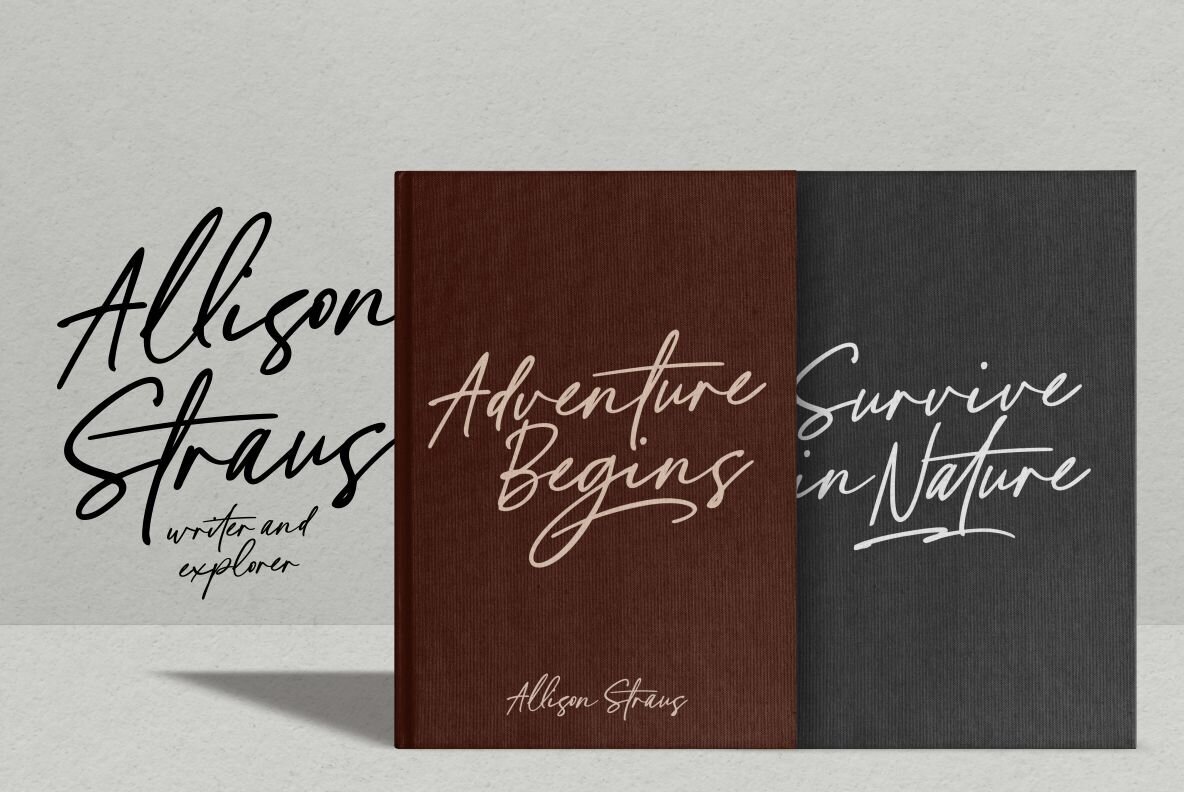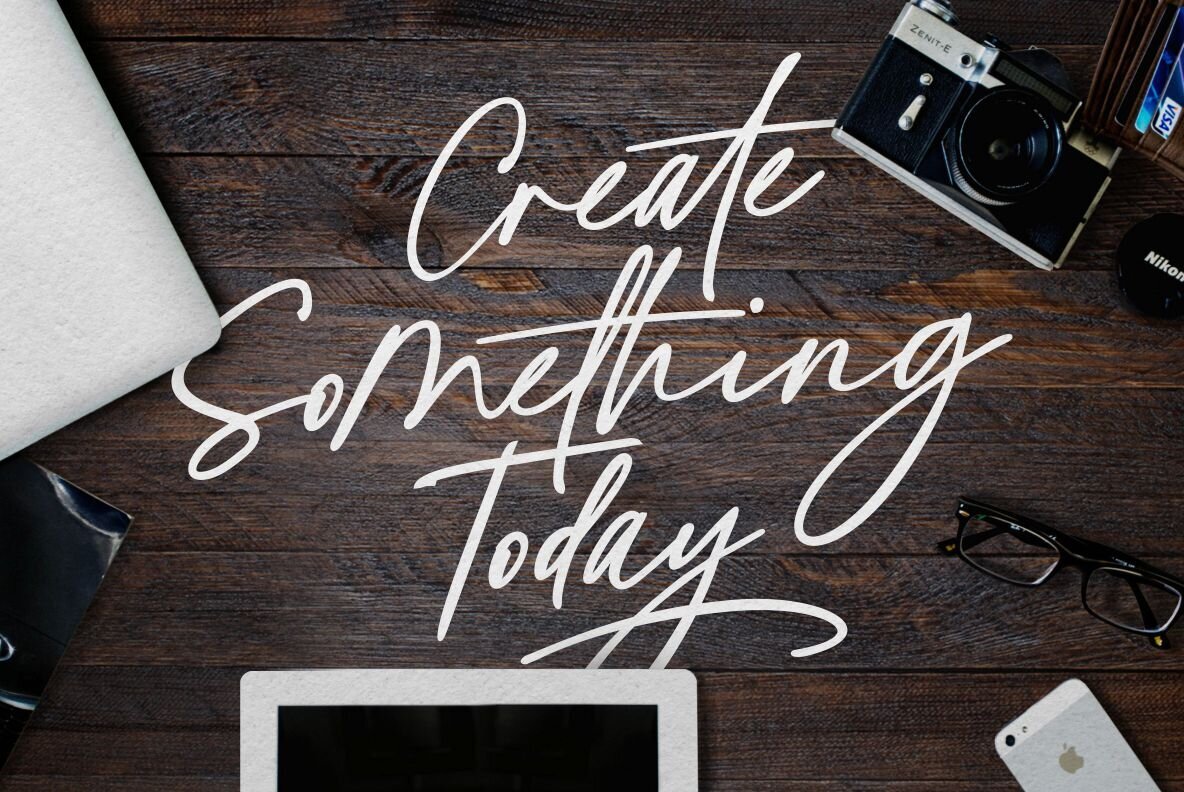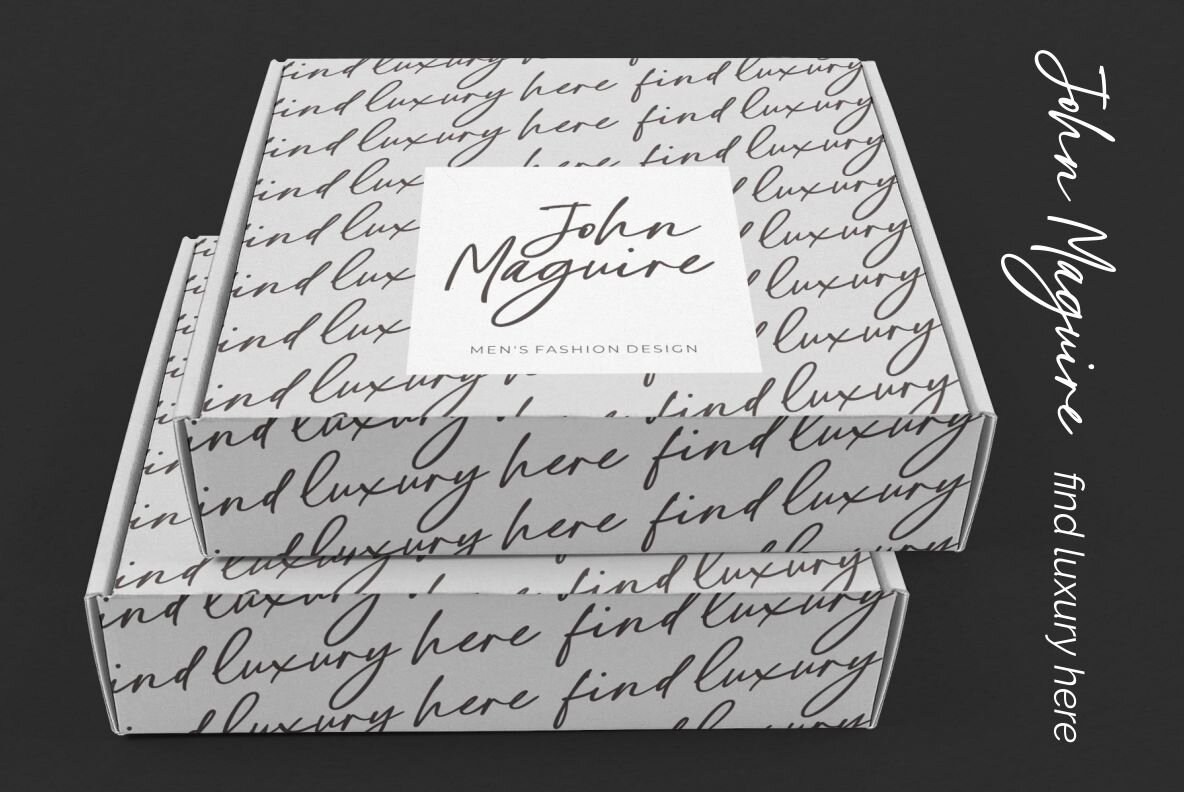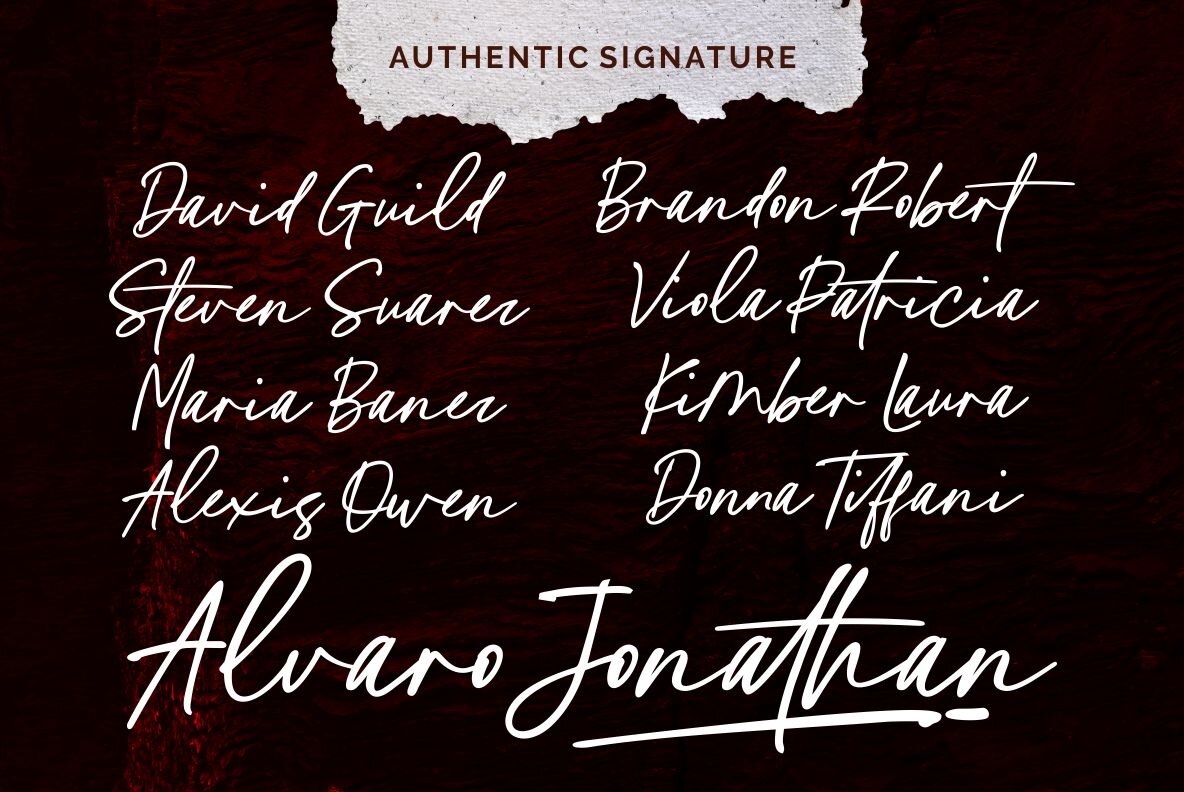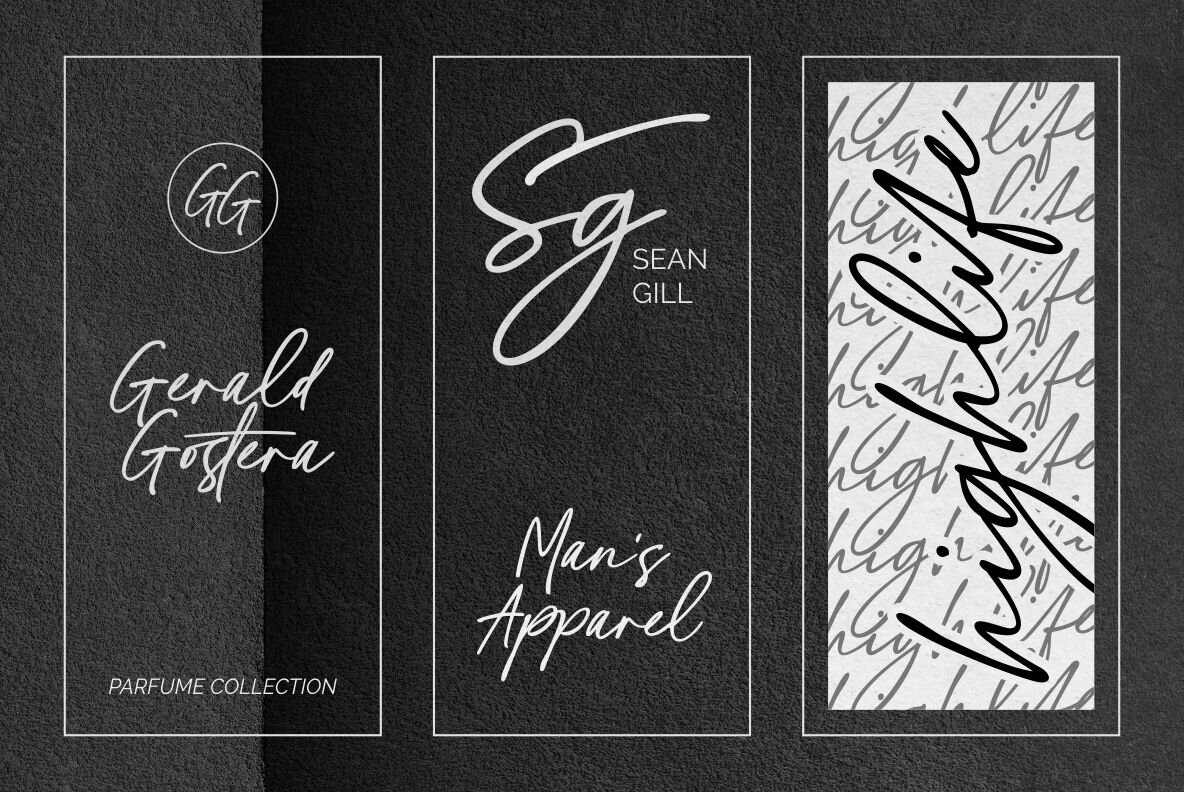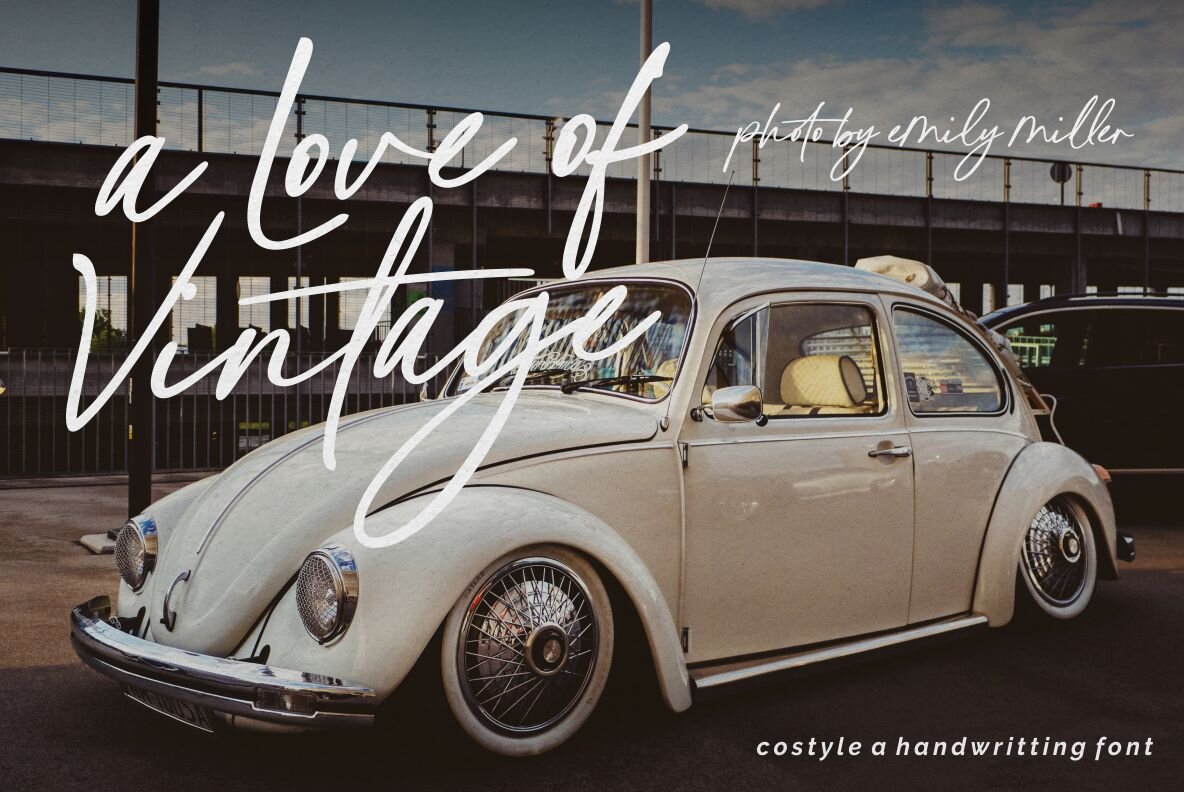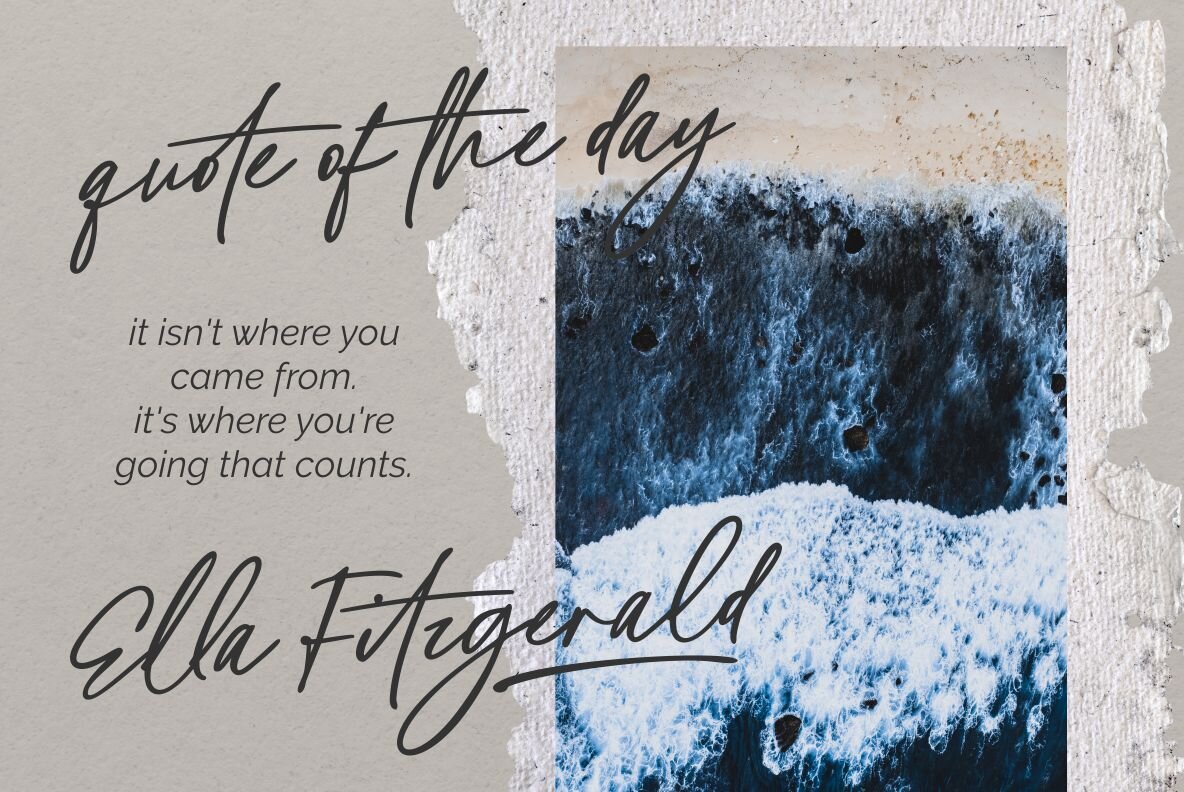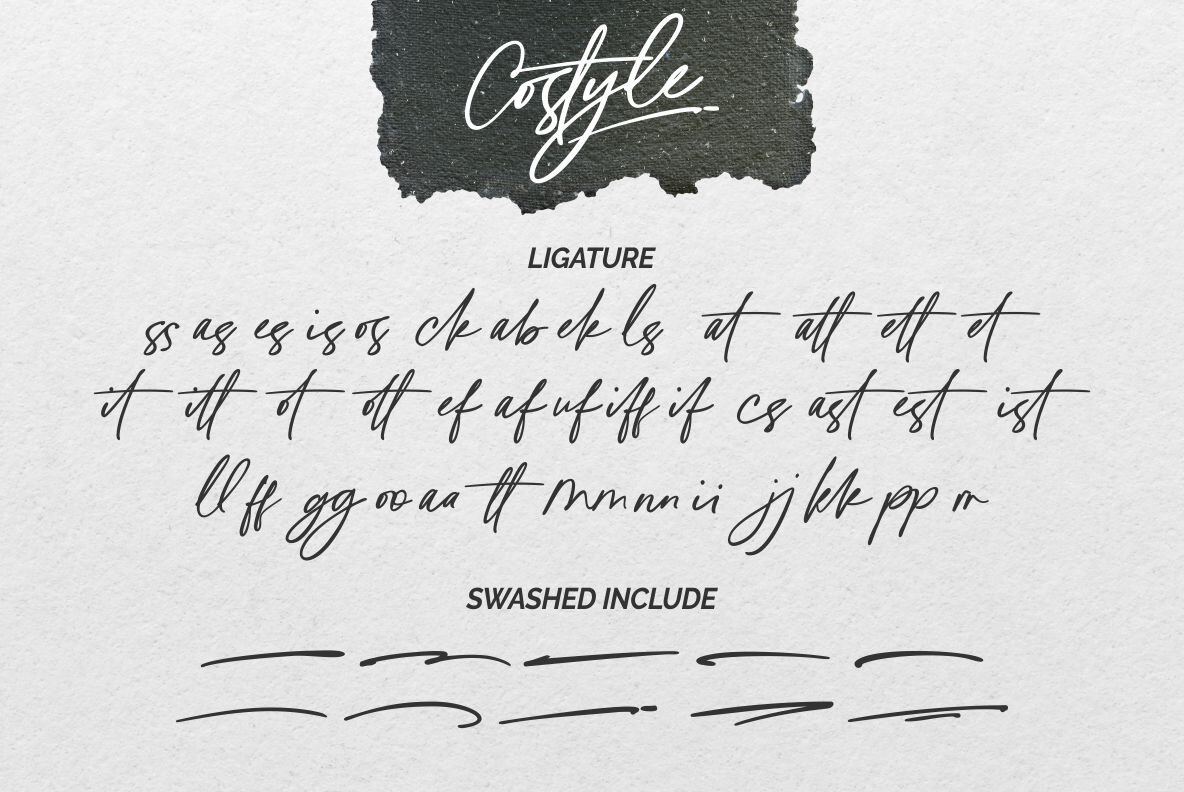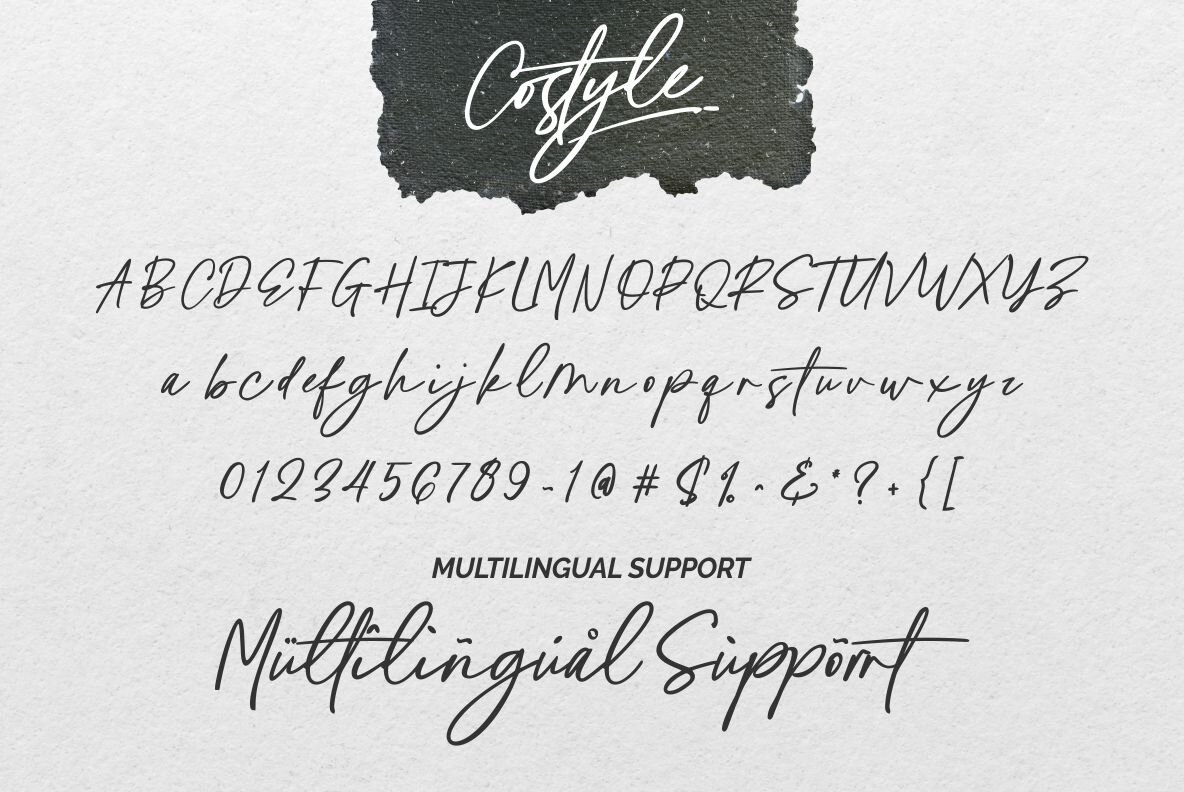
Costyle Font
Costyle Regular
The Costyle font by Ergibi Studio offers a captivating handwritten design, providing a seamless blend of elegance and fluidity. Ideal for logos, signatures, quotes, and diverse branding elements, Costyle’s graceful signature style elevates any design project with its inherent charm. Features: The font supports multiple languages, including Cornish, Danish, Dutch, English, Estonian, Faroese, Filipino, Finnish, French, Galician, German, Icelandic, Indonesian, Irish, Italian, Norwegian Bokmål, Norwegian Nynorsk, Portuguese, Spanish, Swahili, Swedish, Swiss German. Such extensive multilingual support makes Costyle an adaptable choice for international projects.Costyle: Distinctive Handwritten Elegance